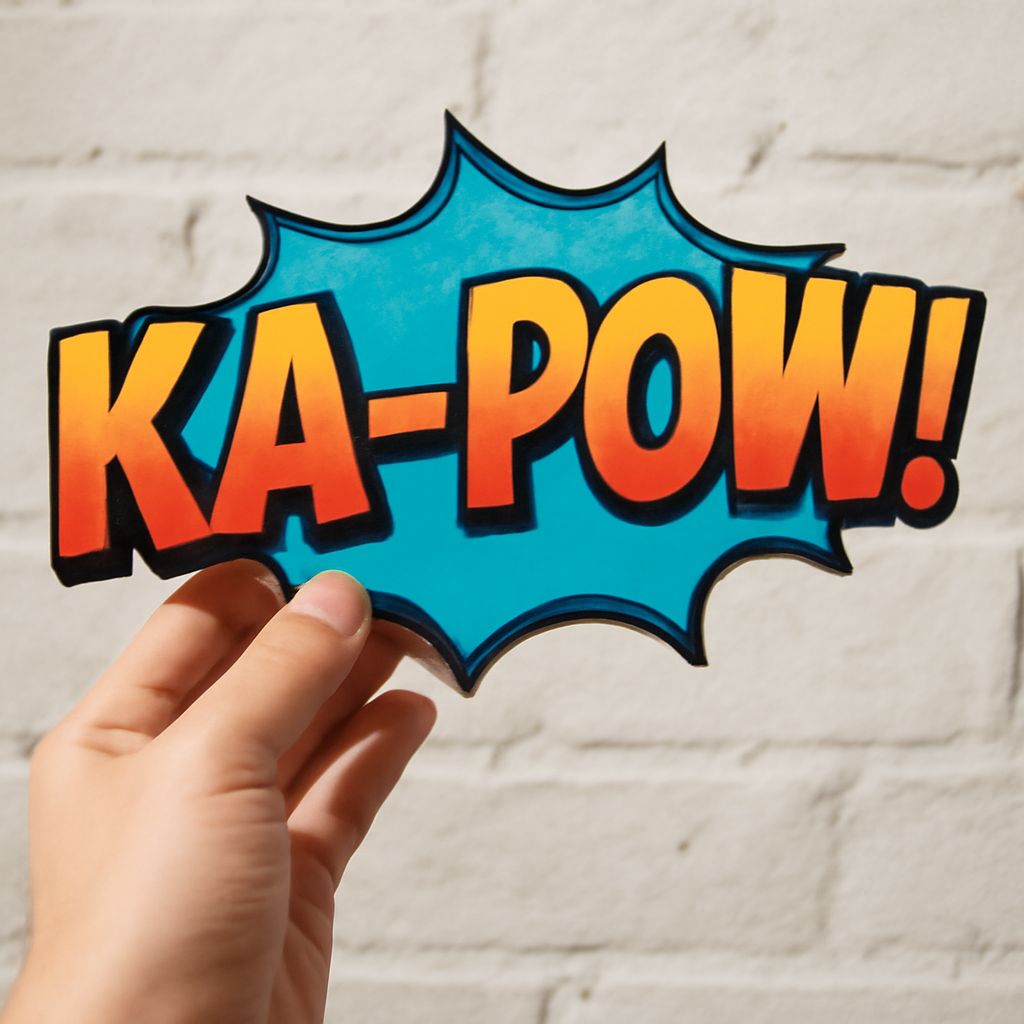
Have you ever wondered how the right font can transform your design project from ordinary to extraordinary? Whether you’re creating a holiday card or designing a new logo, choosing the appropriate font is crucial. With a plethora of styles like hand drawn fonts that offer unique flair, gingerbread font designs that add a festive touch, or the versatile shell font, typography holds the power to enhance your visual narrative. Dive into this guide to discover how these popular font choices, including the bold and edgy dagger font, can elevate your work.
From feminine elegance to edgy sophistication, understanding and selecting the right typography can set the tone and convey your message effectively. This guide will provide insights into five distinct font styles—hand drawn fonts, gingerbread font, shell font, and dagger font—to help you make informed decisions for any design project.
Understanding Girly Fonts
Characteristics of Girly Fonts
Girly fonts are often characterized by their soft curves, playful scripts, and whimsical elements. These fonts can range from elegant calligraphy to fun and quirky handwritten styles. Their appeal lies in their ability to evoke femininity and grace while maintaining readability and style.
Popular Uses for Girly Fonts
You’ll find girly fonts frequently used in wedding invitations, branding for beauty products, and children’s book covers. Their versatile nature allows them to adapt to various themes, making them a top choice for designers who wish to convey creativity and warmth.
Exploring Hand Drawn Fonts
Unique Features of Hand Drawn Fonts
Hand drawn fonts stand out with their organic and imperfect lines that mimic actual handwriting. These fonts bring a personal touch to designs, often integrating a sense of authenticity and uniqueness.
Creative Applications in Design
These fonts are ideal for projects that require a human element, such as personal blogs, artisan product branding, and social media graphics. By using hand drawn fonts, you can lend a genuine and approachable feel to your work.
Pairing Hand Drawn Fonts with Other Styles
Combining hand drawn fonts with clean, minimalist typefaces can create a balanced and visually appealing composition. This pairing works well in modern designs, where a touch of whimsy is needed without overwhelming the primary message.
Gingerbread Font: A Festive Touch
History and Inspiration
The gingerbread font draws inspiration from holiday cookies, capturing the essence of festivity and warmth. Its decorative and intricate design elements make it perfect for seasonal projects.
Design Ideas with Gingerbread Fonts
Use gingerbread font on holiday cards, festive banners, and themed event invitations. Its charm lies in its ability to evoke a sense of nostalgia and cheer, making it a favorite during the holiday season.
Combining Gingerbread Fonts with Other Types
To prevent gingerbread font from overpowering a design, pair it with simple, sans-serif fonts. This contrast allows the festive elements to shine while maintaining overall readability and balance.
Shell Font: Embracing Nature
Design Elements of Shell Fonts
The shell font is inspired by the natural beauty of seashells, featuring smooth curves and organic shapes. Its elegance and simplicity make it a timeless choice for those looking to incorporate elements of nature into their designs.
Using Shell Fonts in Branding
Incorporate shell font into branding for eco-friendly products, beach resorts, or natural skincare lines. Its gentle and fluid style communicates a sense of tranquility and harmony with nature.
Shell Font Variations
The versatility of the shell font comes from its various iterations, ranging from ornate to minimalist. This flexibility allows designers to choose a style that aligns perfectly with their project’s theme.
Bold and Edgy: Dagger Font
Characteristics of Dagger Font
Dagger font is known for its sharp edges and bold presence. It conveys strength and edginess, making it an excellent choice for striking headlines and impactful messages.
Incorporating Dagger Font in Design Projects
Use dagger font in projects that require a dramatic flair, such as action movie posters, edgy fashion brands, or music album covers. Its commanding style ensures your message grabs attention.
Dagger Font Pairings
Pair dagger font with softer or more neutral fonts to balance its intensity. This strategic pairing can create a sophisticated and modern design aesthetic, suitable for a variety of applications.
Choosing the Right Font for Your Project
Considerations for Font Selection
When choosing a font, consider factors such as readability, the emotions you wish to convey, and the overall theme of your project. The right font can enhance your message, while a poorly chosen one can detract from it.
Mixing and Matching Fonts
Experiment with combining different font styles to add depth and interest to your design. Ensure that the fonts complement each other and maintain a cohesive look. Balance is key; too many competing styles can create visual clutter.